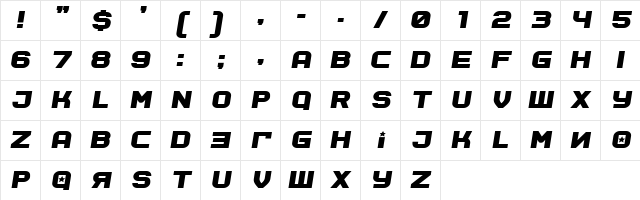
Soviet Program Bold Italic
Design Context for Soviet Program
Soviet Program is a composed and adaptable typeface that performs quietly and consistently across a wide range of design contexts. The slanted form adds forward momentum and visual energy. Its bold stroke weight gives it real presence on the page.
Pro Tip: Use Soviet Program for emphasis, pull quotes, and subheadings where its slanted energy can add rhythm to the layout.